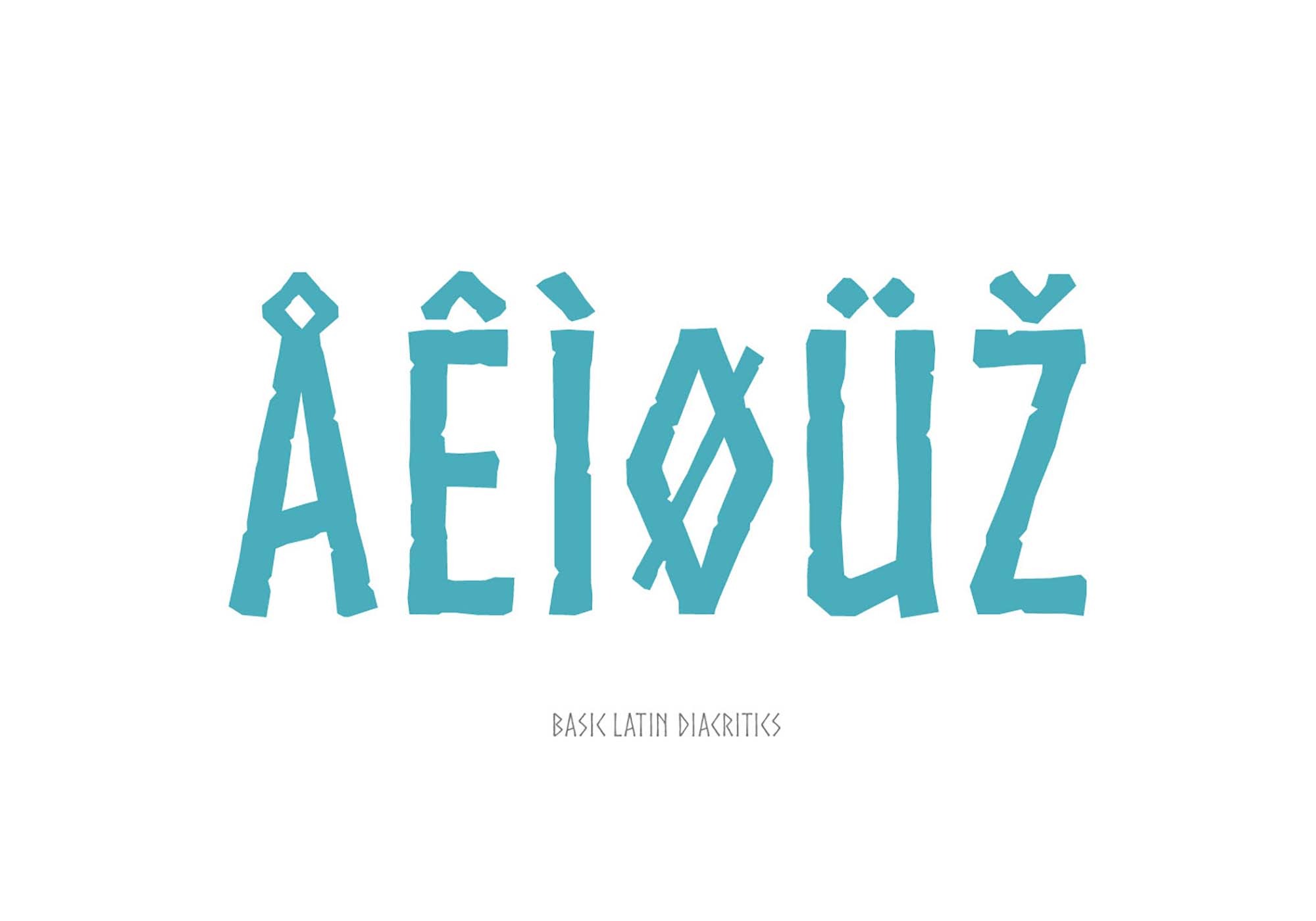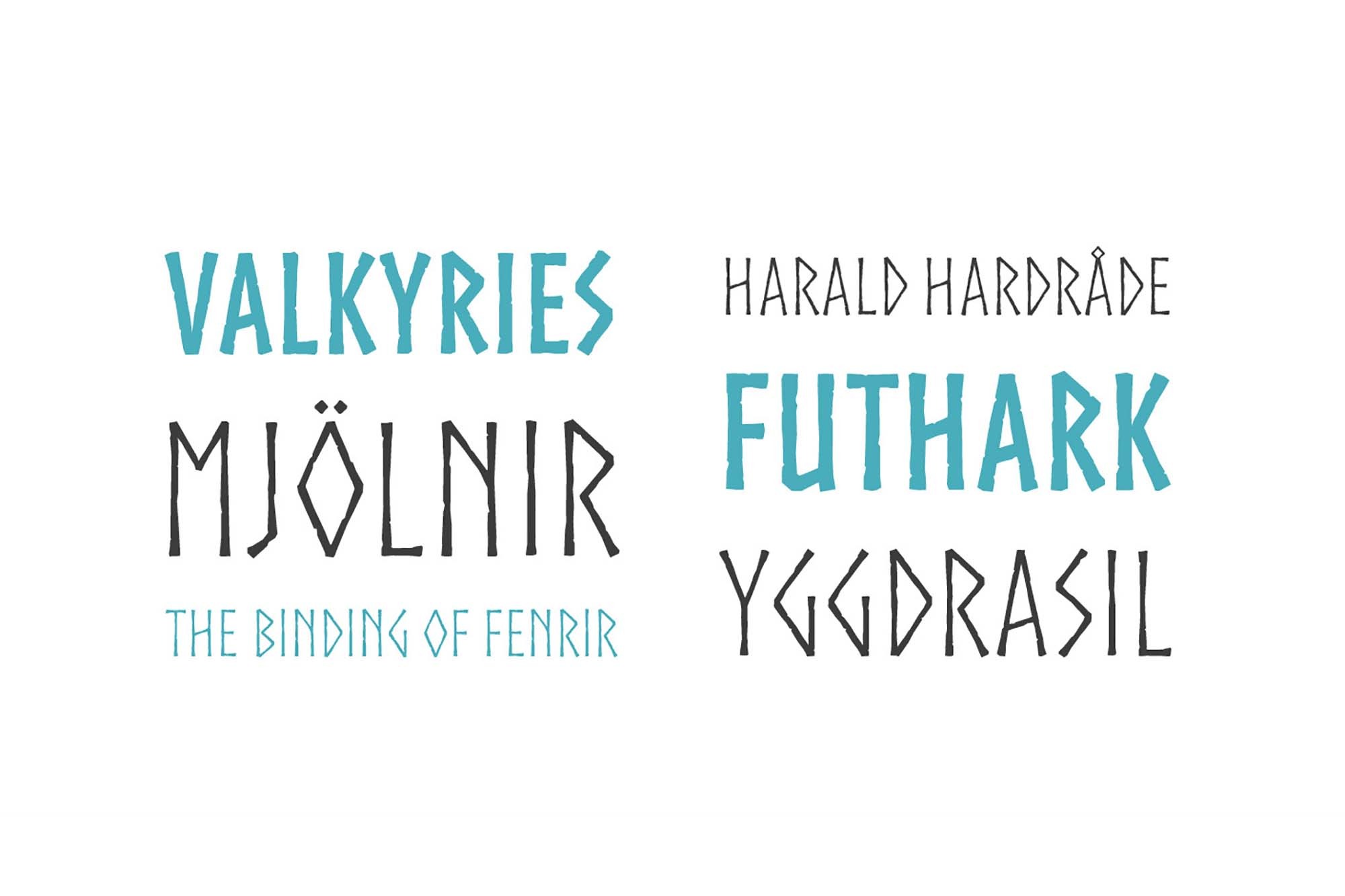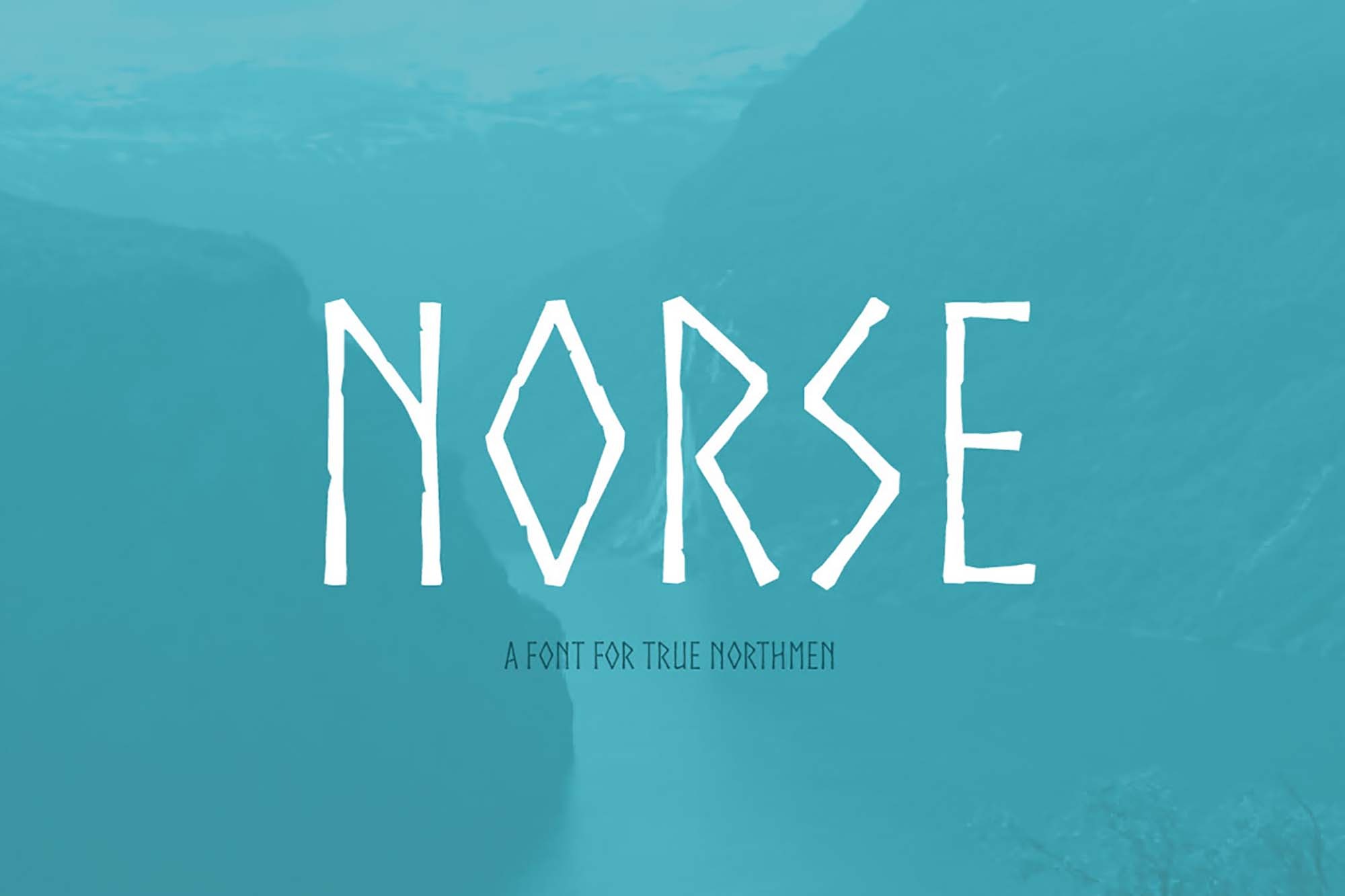
Norse Display Font is a stunning playful display typeface inspired by nordic epigraphy: runes, futhark, or whatever you call them. It is perfectly suited for pagan magazines, drakkar tv commercials or Valhalla invitation cards. The fonts even include an complete runic alphabet with unicode support, which is highly useless but totally badass.